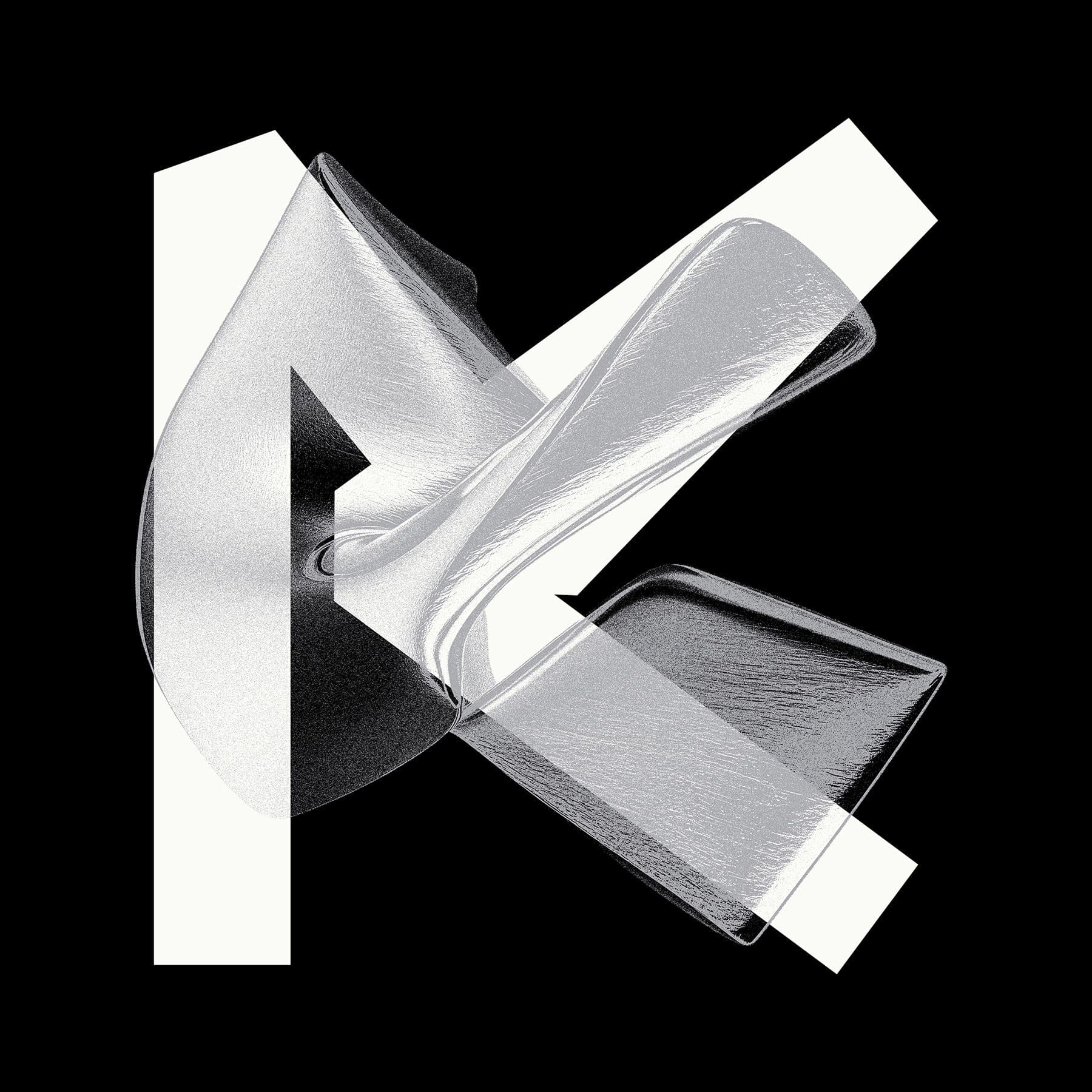
The Kitt vs Kar poster was designed by Formula Type founder Piero Di Biase for the AGI 2024 Congress special project. If a driverless car causes an accident, whose fault is it? To what extent is the designer in control when producing an image using AI? Inspired by the 1980s series Knight Rider, in which an AI-powered car called Karr challenges the driver-driven car called Kitt, Piero Di Biase starts a dialogue on typography with Midjourney, involving inspiration and interpretative freedom. Drawing on the designer’s Kitt lettering, Midjourney created the Karr lettering, blending the font with close-ups of crashed self-driving cars. The poster is available on request, Giclée print, A1 or A2 size. Delivery times depend on our suppliers. Please write to us at support@formulatype.com.